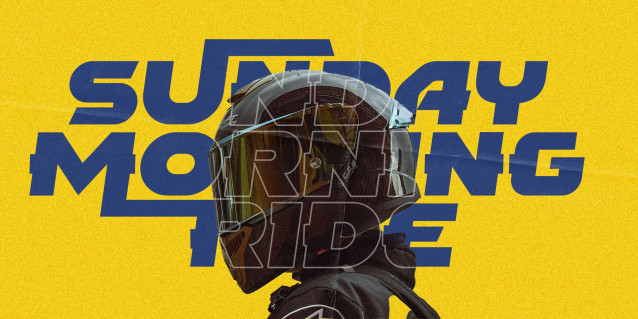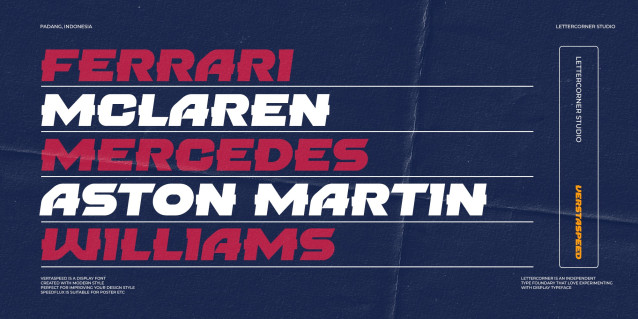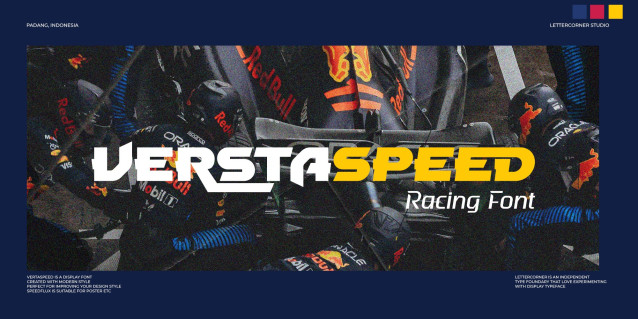
Verstaspeed Font
Verstaspeed Font isn’t only about speed-inspired letterforms — it’s a complete racing type system. With a wide set of alternates and ligatures, this font gives designers the freedom to create dynamic, fast-moving wordmarks that feel alive on the track.